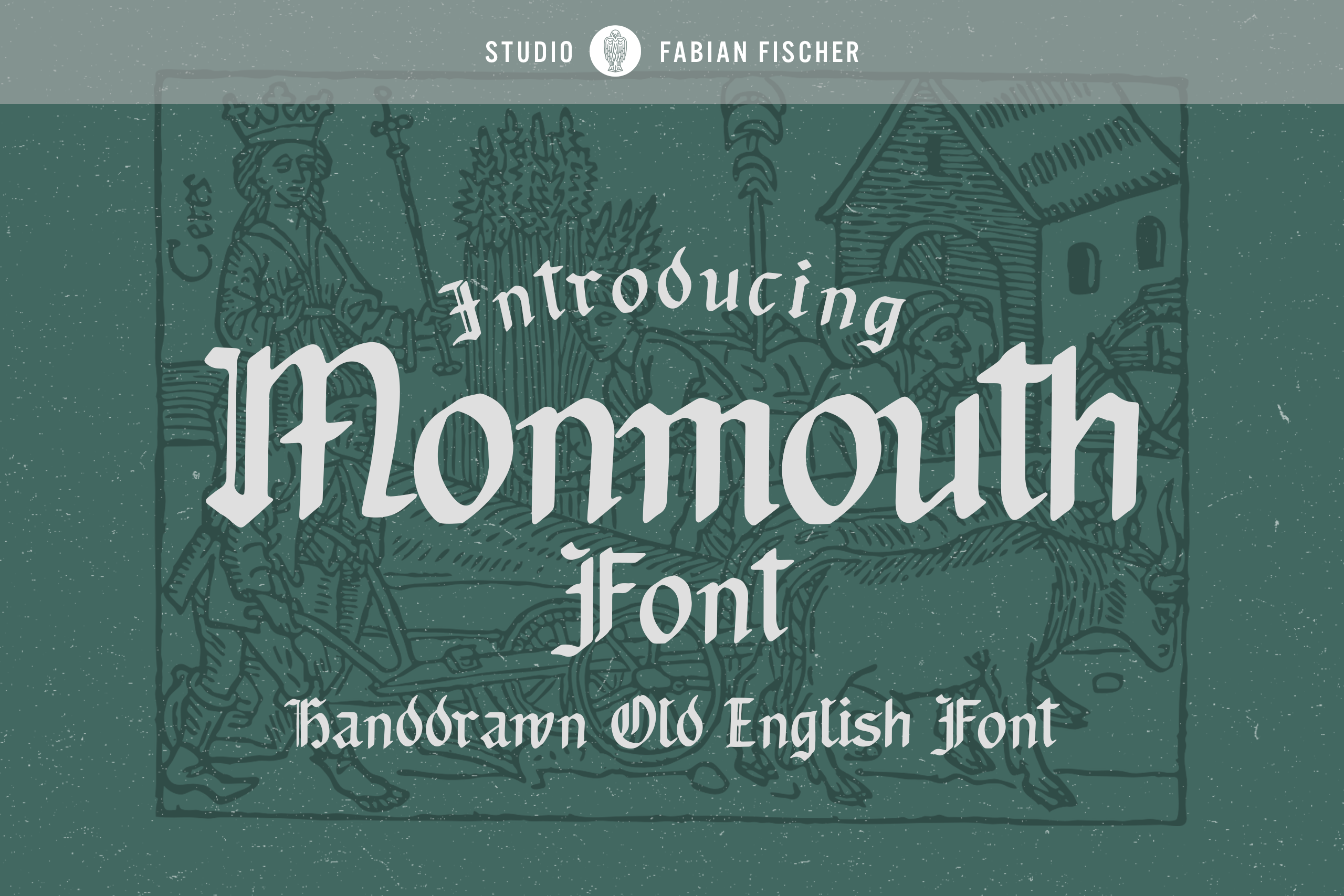
Monmouth Font - Handdrawn
Inspired by the old Blackletter/Old English fonts with a simplified caligraphy I'm happy to introduce Monmouth Font. This font should have you ready to style any dark or dope apparel designs, album covers or anything else you think it can handle! Check out this fancy handcrafted font.